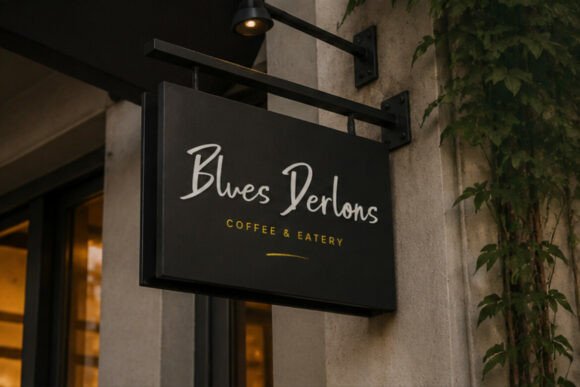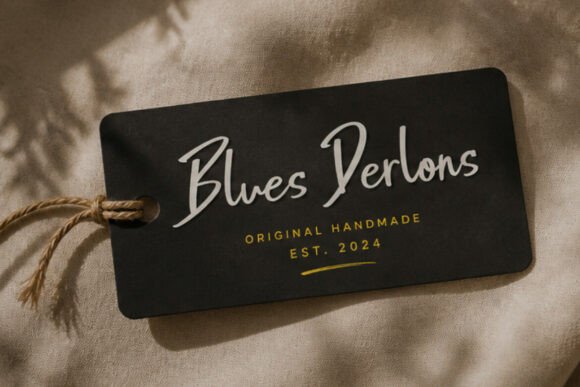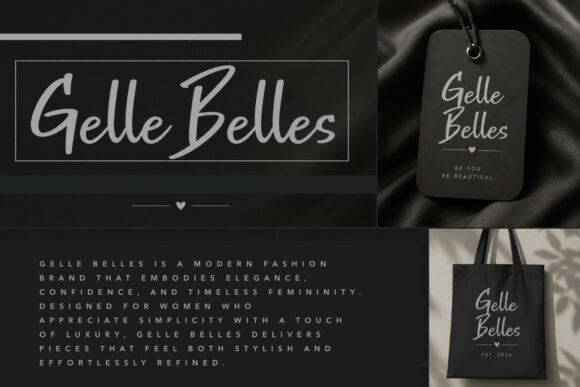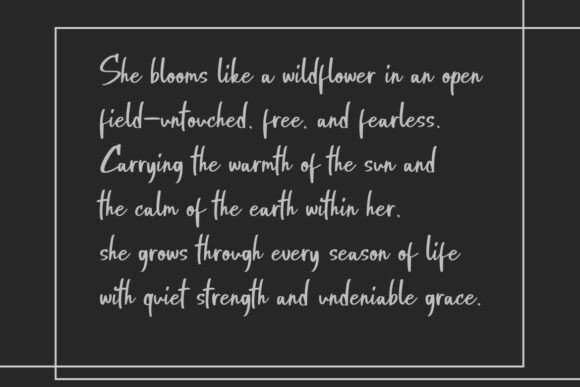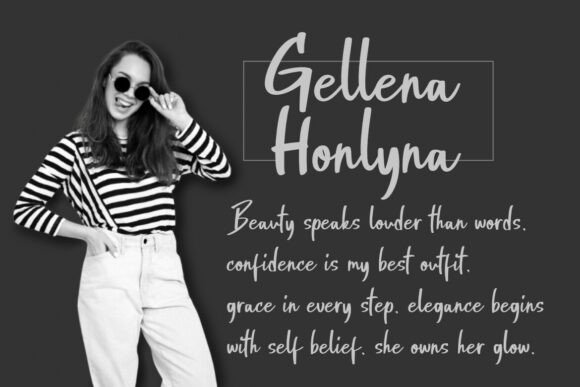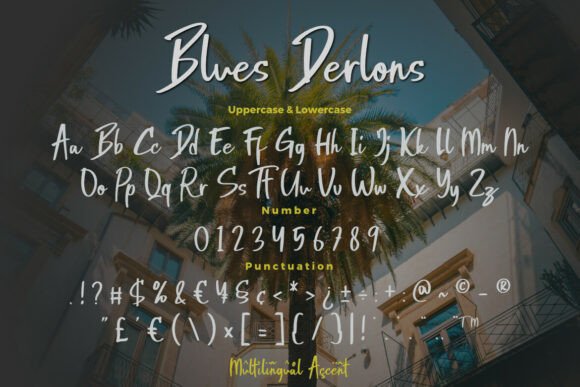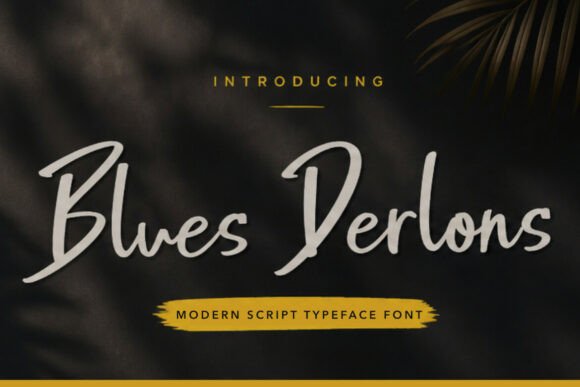
The Quest for the Perfect Font: Discovering Blues Derlons
I still remember the frustration of scrolling through font after font, searching for the perfect one to bring my design project to life. My client wanted a modern, artistic, and professional touch, but I was stuck in a creative rut. That’s when I stumbled upon Blues Derlons, a stylish and expressive handwritten font that instantly caught my eye. In this article, I’ll share my experience with Blues Derlons, its features, and how to make the most of this beautiful typeface.
First Impressions: A Modern Script Typeface
Blues Derlons is a modern script typeface that embodies the elegance of fluid brush strokes, contemporary lettering, and smooth calligraphic forms. Its elegant curves, natural flow, and balanced proportions deliver a clean and modern visual appeal that’s perfect for creative projects. What I love about Blues Derlons is its ability to combine soft stroke transitions with a polished and contemporary finish, creating a dynamic and organic rhythm that enhances its visual charm.
- ✨ Elegant and expressive handwritten style
- ✅ Versatile and refined, suitable for various design applications
- 💫 Beautifully crafted characters with subtle irregularities
- 📝 Excellent readability, even at smaller font sizes
- 🤔 Limited availability of condensed or extended styles
- Experiment with OpenType features, such as stylistic alternates and swashes, to add creative flair to your design.
The Designer Inspiration Behind Blues Derlons
Blues Derlons was designed with the intention of capturing the beauty of natural handwriting. Its creator aimed to craft a typeface that would reflect the elegance and expressiveness of handwritten lettering, while still maintaining a modern and polished feel. The result is a font that exudes sophistication and creativity, making it perfect for designers seeking a unique and artistic touch.
| What makes Blues Derlons unique? | Blues Derlons features elegant curves, natural flow, and balanced proportions, making it a standout modern script typeface. |
| Is Blues Derlons suitable for body text? | While Blues Derlons is beautiful for headlines and titles, it may not be the best choice for body text due to its script nature. |